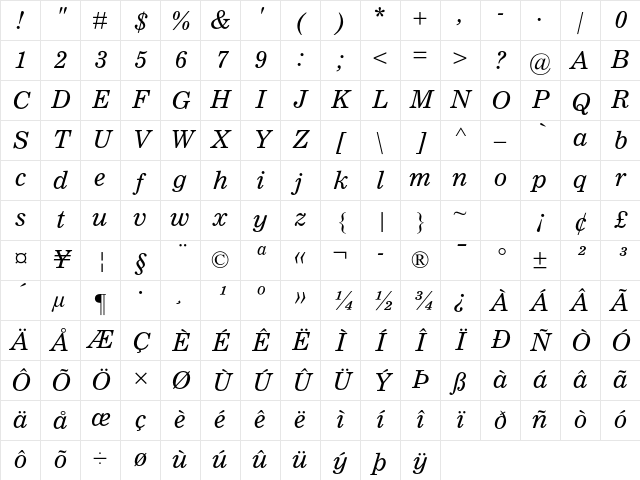
Complete Clarion MT Std Italic glyph index. Displaying only characters natively supported by Clarion MT Std Italic font.
Clarion MT Std is a composed and adaptable typeface that performs quietly and consistently across a wide range of design contexts. The slanted form adds forward momentum and visual energy.